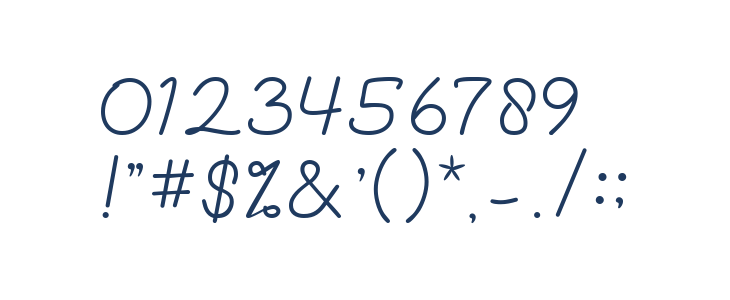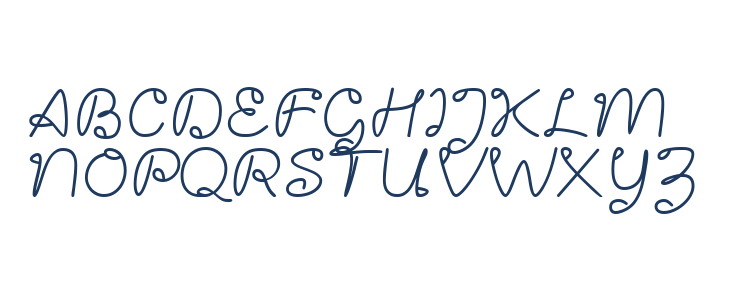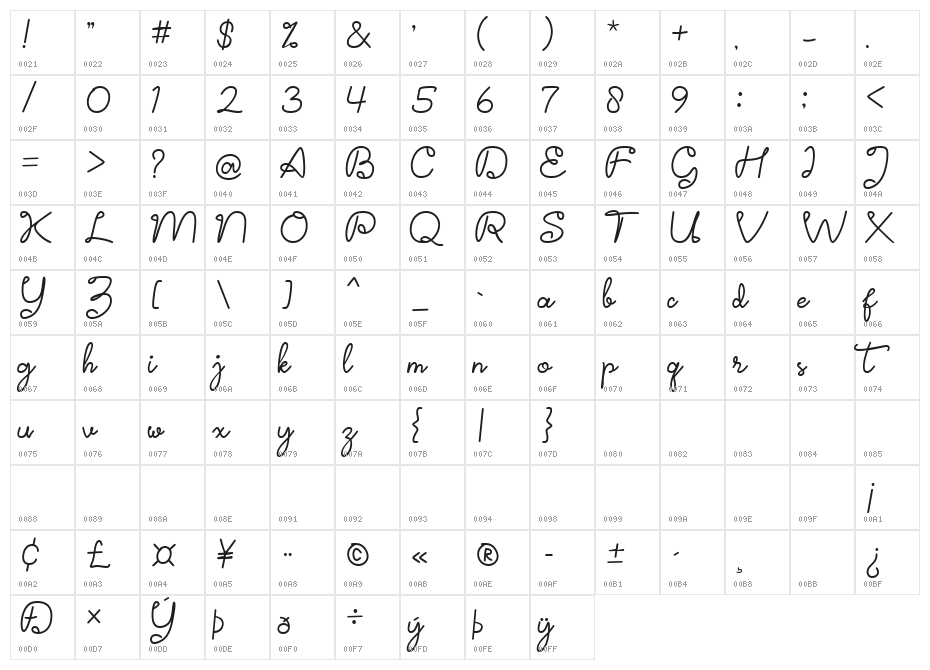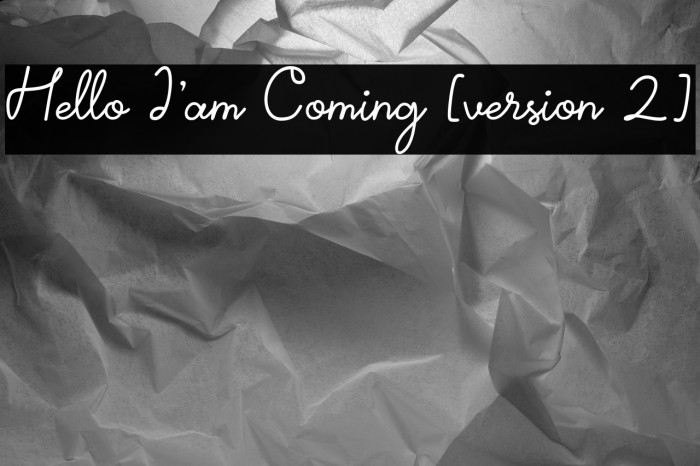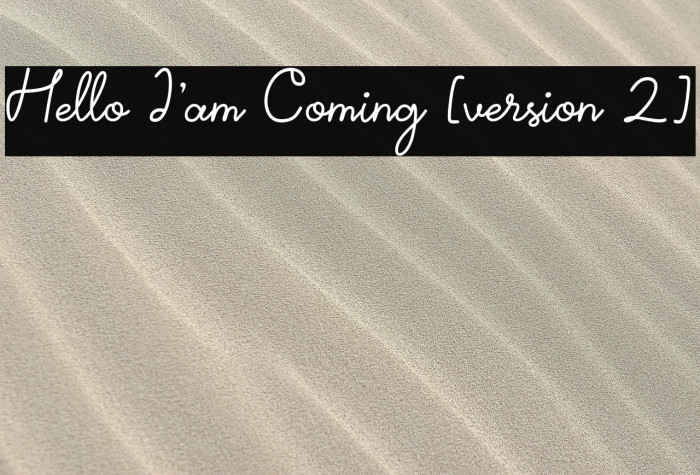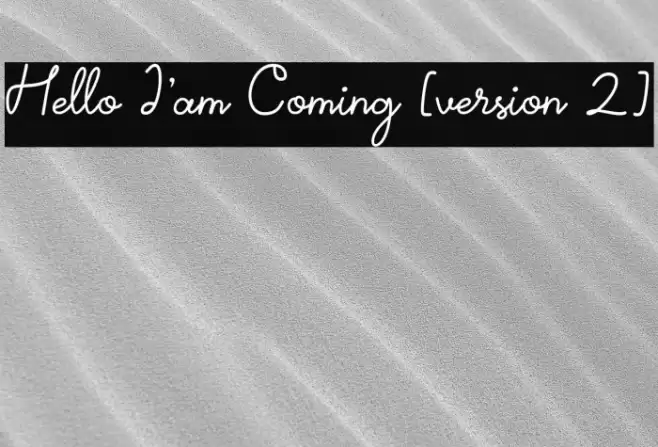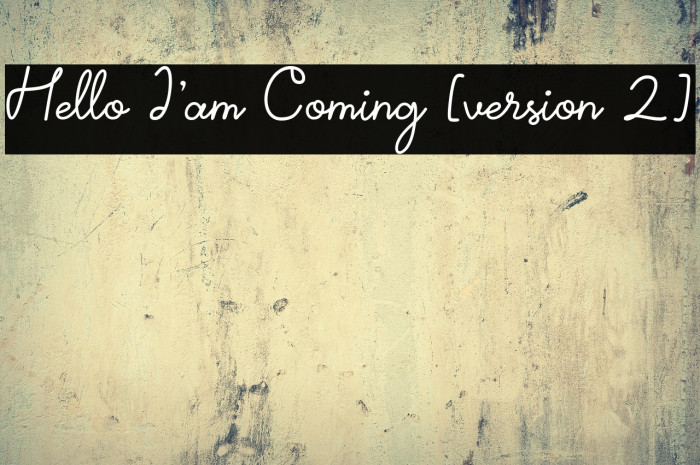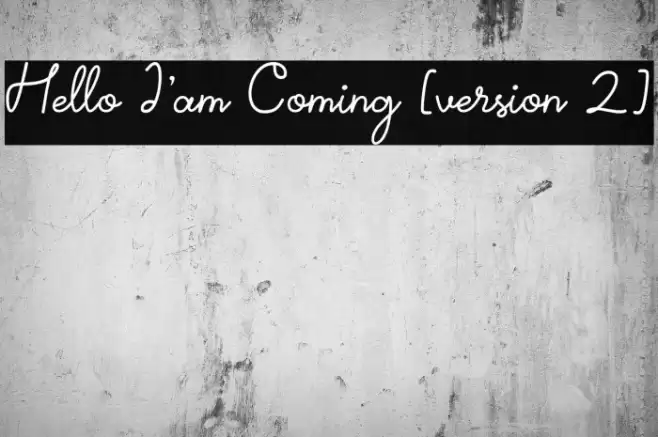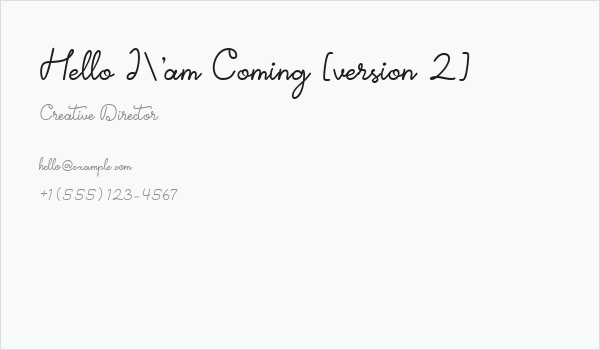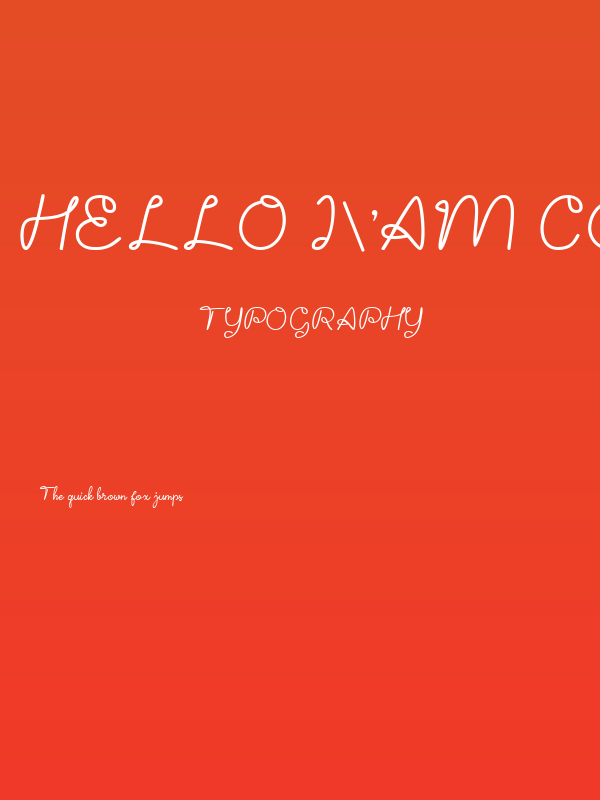
Hello I'am Coming [version 2] Font
Hello I'am Coming [version 2] Description
This font features a playful and elegant script style with a handwritten appearance. The uppercase letters are distinct with a slight slant, giving a sense of movement and fluidity. The lowercase letters are more connected, enhancing the cursive feel. Numbers and special characters maintain the same whimsical style, ensuring consistency across all elements. The strokes are smooth and rounded, contributing to a friendly and approachable look. This font is ideal for projects that require a personal touch, such as invitations, greeting cards, or branding materials. Its unique style makes it stand out while remaining legible.
| Proposed Projects | Ideal for invitations, greeting cards, personal branding, and creative projects. |